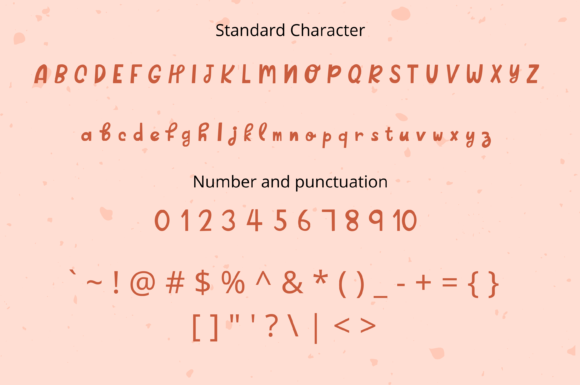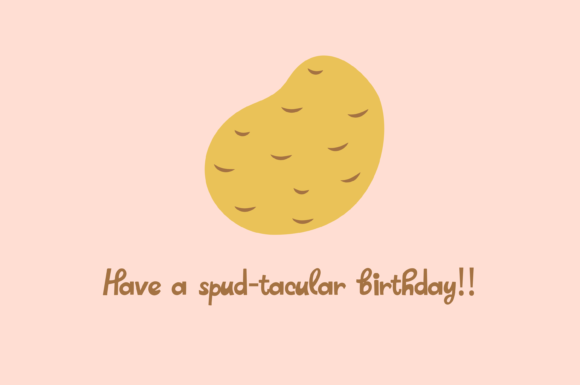
Sweet Potato Font
db-ku.com - Script & Handwritten -- Sweet Potato is a whimsical and clean handwritten font. It can easily be matched to a large set of projects, so add it to your creative ideas, and notice how it makes them stand out!